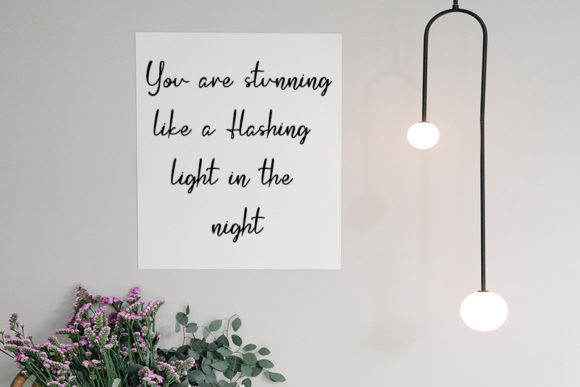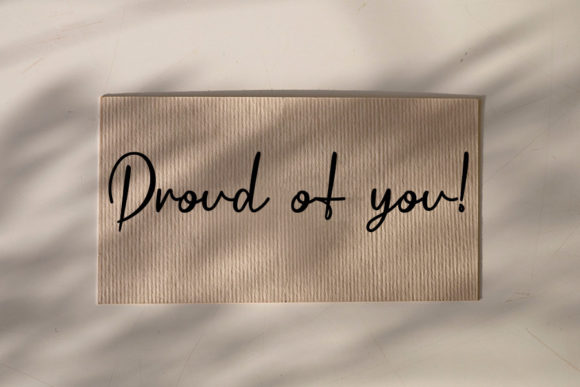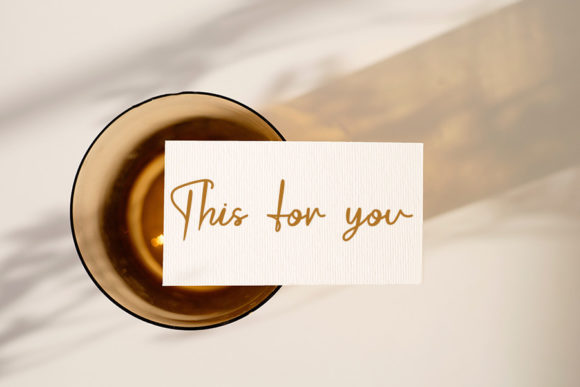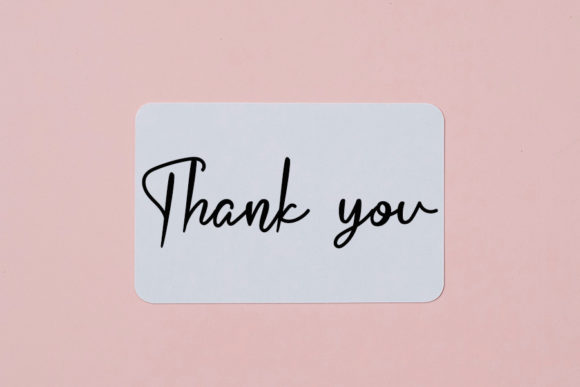
Introducing Flashing Font: Elevate Your Designs with Elegance and Class
Are you tired of using the same old fonts in your designs? Look no further! Flashing Font is a lovely and delicate script font that exudes elegance and class. This font was particularly crafted for those who need a beautiful and refreshing look to their designs. In this article, we’ll dive into the world of Flashing Font and explore its features, benefits, and uses.
What is Flashing Font?
Flashing Font is a script font that is designed to add a touch of sophistication and glamour to your designs. Its delicate and elegant strokes make it perfect for a variety of design projects, from wedding invitations and branding materials to social media graphics and website headers.
Key Features of Flashing Font
- Elegant and Delicate Strokes: Flashing Font features elegant and delicate strokes that give it a sophisticated and refined look.
- Script Font Style: This font is a script font, which means it’s perfect for adding a touch of elegance and class to your designs.
- High-Quality Design: Flashing Font is designed with high-quality and precision, ensuring that it looks great in any design project.
- Easy to Read: Despite its delicate strokes, Flashing Font is easy to read, making it perfect for body text and headings.
Benefits of Using Flashing Font
So, why should you use Flashing Font in your designs? Here are just a few benefits:
- Adds Elegance and Class: Flashing Font adds a touch of elegance and class to your designs, making them stand out from the crowd.
- Versatile: This font is versatile and can be used in a variety of design projects, from print to digital.
- Refreshes Your Designs: If you’re tired of using the same old fonts, Flashing Font can help refresh your designs and give them a new look.
- Perfect for Branding: Flashing Font is perfect for branding materials, such as logos, business cards, and letterheads.
Uses of Flashing Font
So, what can you use Flashing Font for? Here are just a few ideas:
- Wedding Invitations: Flashing Font is perfect for wedding invitations, adding a touch of elegance and romance to your designs.
- Branding Materials: Use Flashing Font for branding materials, such as logos, business cards, and letterheads.
- Social Media Graphics: Add a touch of elegance to your social media graphics, such as Facebook and Instagram posts.
- Website Headers: Use Flashing Font for website headers, adding a touch of sophistication and glamour to your website.
Tips for Using Flashing Font
Here are a few tips for using Flashing Font:
- Use it Sparingly: While Flashing Font is elegant and beautiful, it’s best to use it sparingly to avoid overwhelming your designs.
- Pair it with Other Fonts: Pair Flashing Font with other fonts to create a unique and interesting look.
- Experiment with Colors: Experiment with different colors to find the perfect combination for your designs.
In conclusion, Flashing Font is a beautiful and elegant script font that can add a touch of sophistication and glamour to your designs. Its delicate and elegant strokes make it perfect for a variety of design projects, from wedding invitations and branding materials to social media graphics and website headers. With its high-quality design and ease of use, Flashing Font is a great addition to any designer’s toolkit.